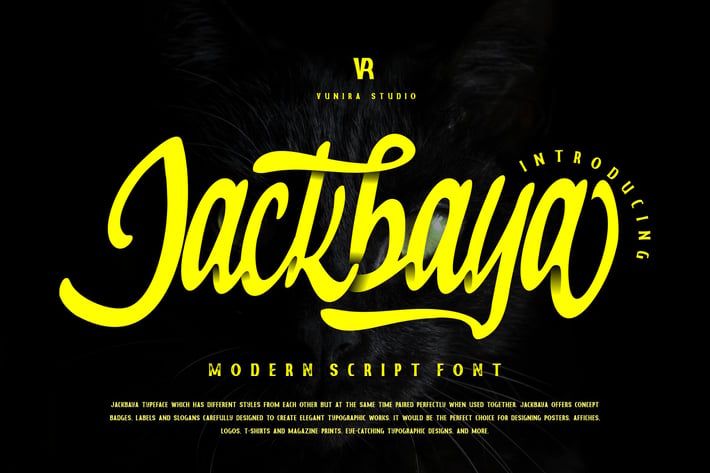
Jackbaya | Modern Script Font
Jackbaya | Modern Script Font with a calligraphy style, So beautiful on invitation like greeting cards, branding materials, business cards, quotes, posters, and more!